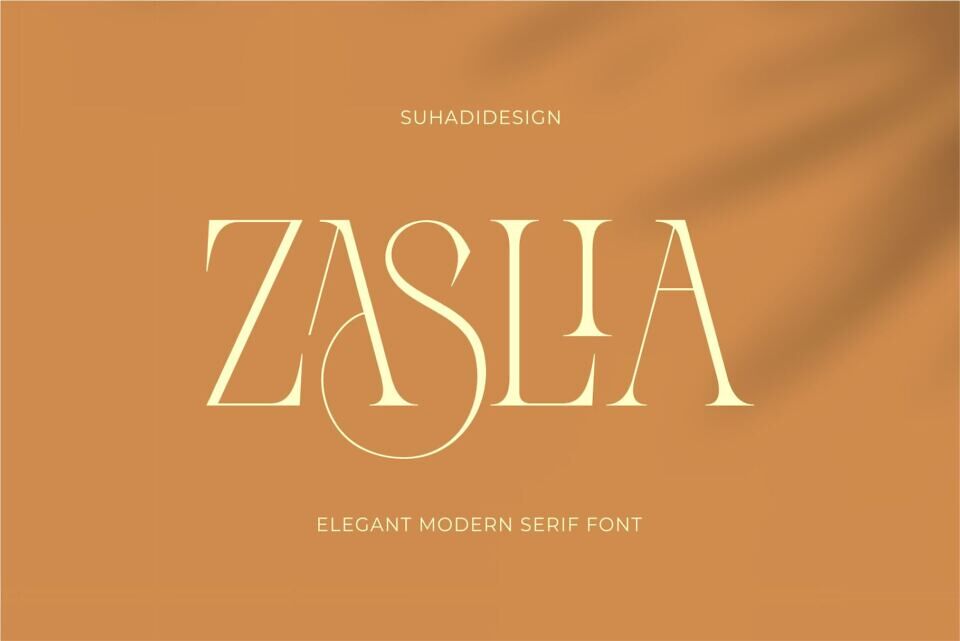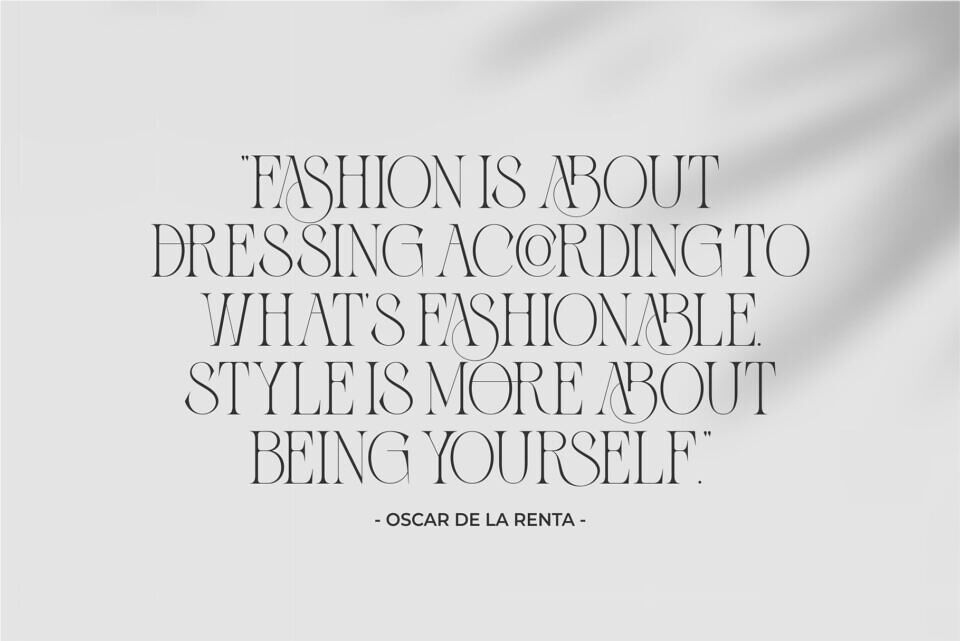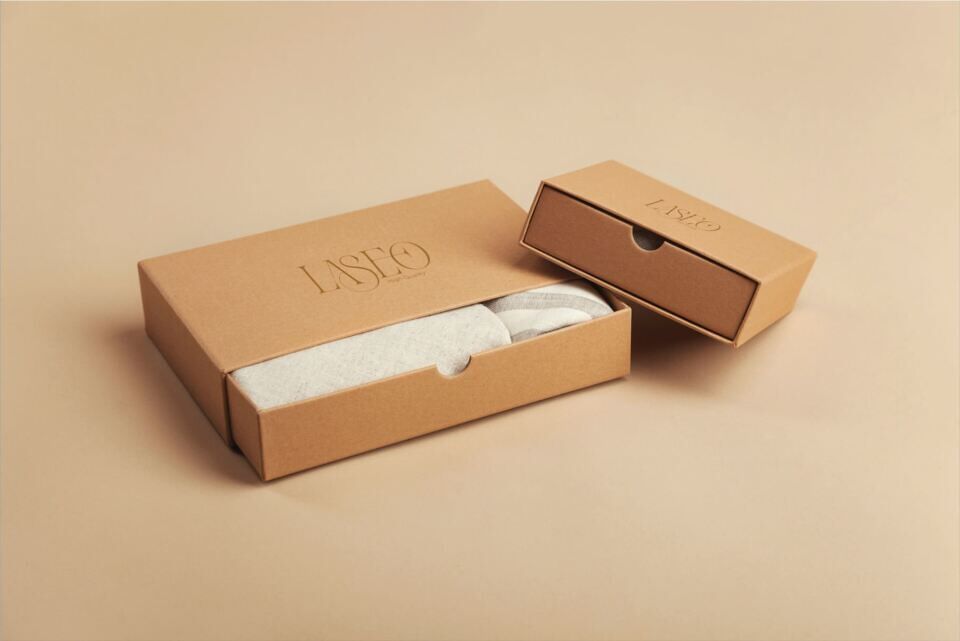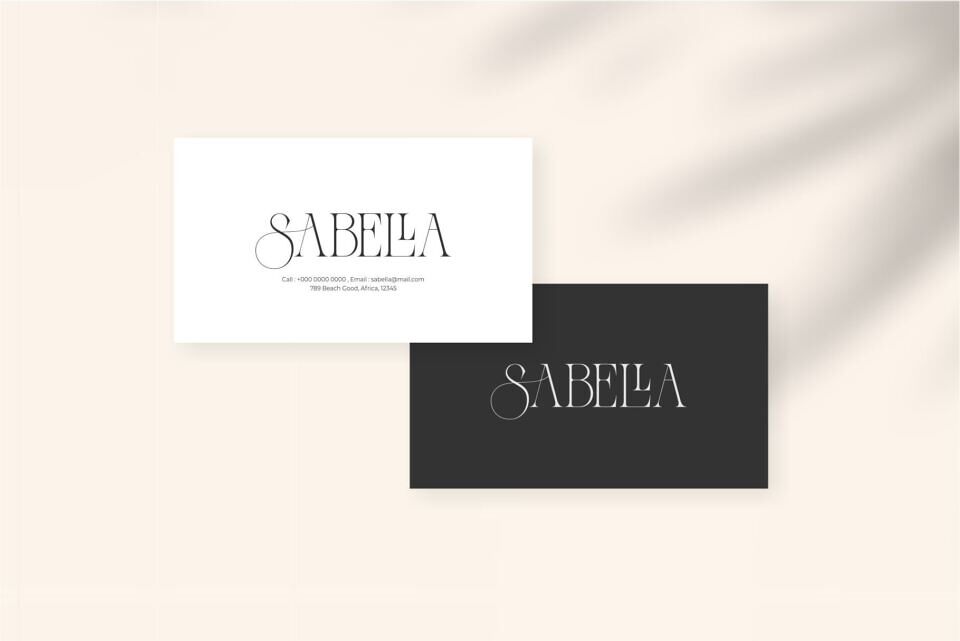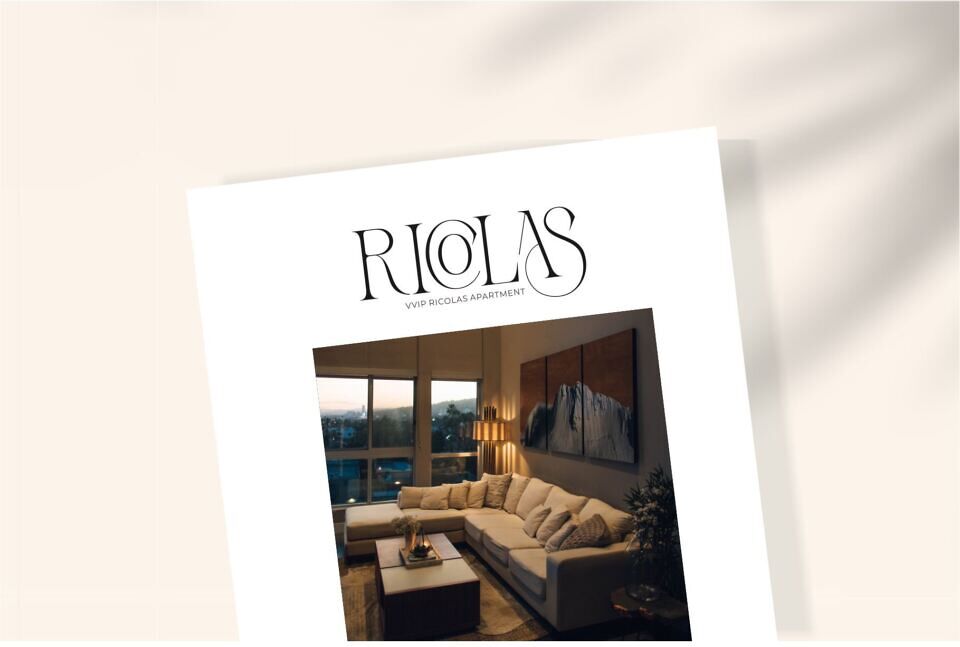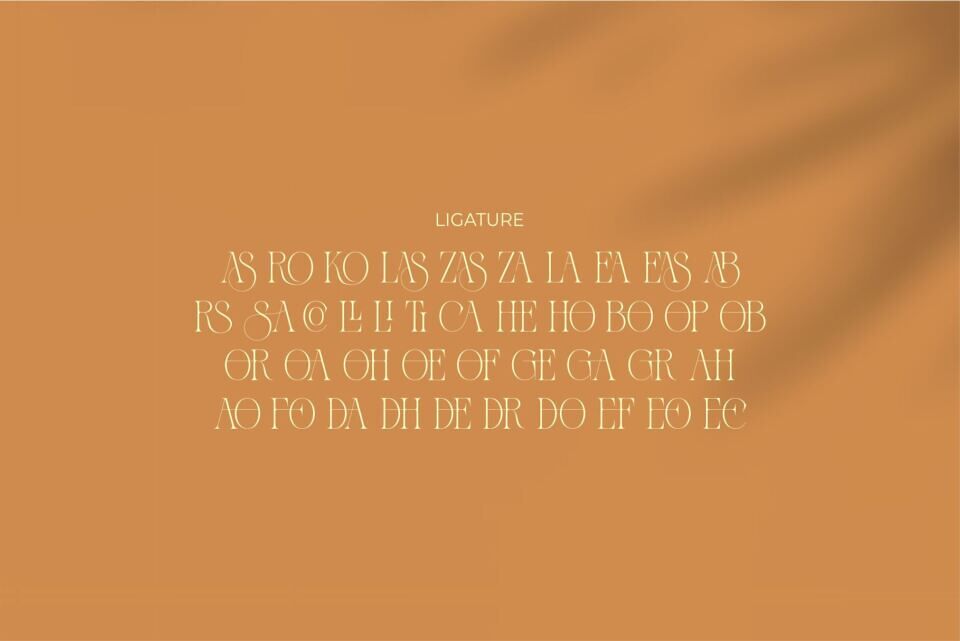
Zaslia Font
Zaslia is a stylish and elegant serif font. With an elegant model with a stylish fastener, it has become a market favorite. We keep this font looking elegant, classy, ​​stylish.
Zaslia Font is a great choice for magazines, design, books, publications, branding, brand names, business cards, social media, classy design, newspaper, branding, beauty and other projects.